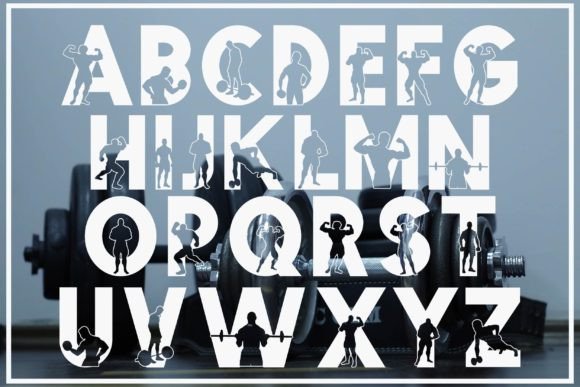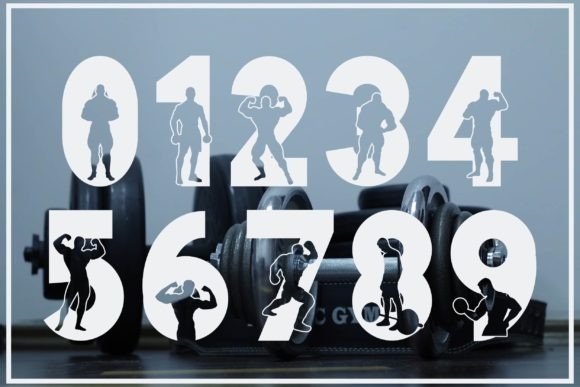
Introduction to Gym Font
Gym is a unique and bold decorative display font.
Use it for all your fitness or sports-related designs and notice how it makes them stand out .
Key Features of Gym Font